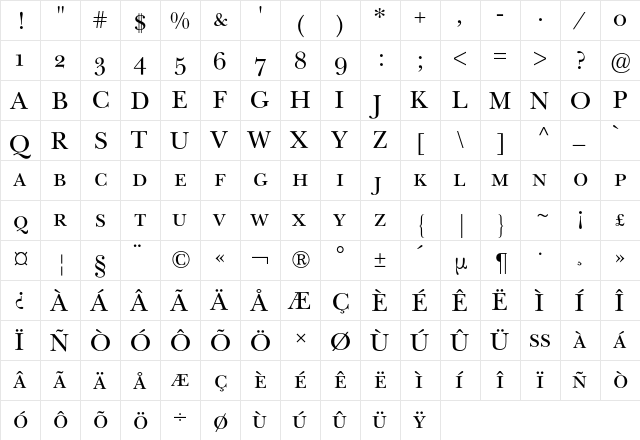
New Baskerville Expert BQ Regular
Design Context for New Baskerville Expert BQ Typeface
New Baskerville Expert BQ is a composed and adaptable typeface that performs quietly and consistently across a wide range of design contexts.